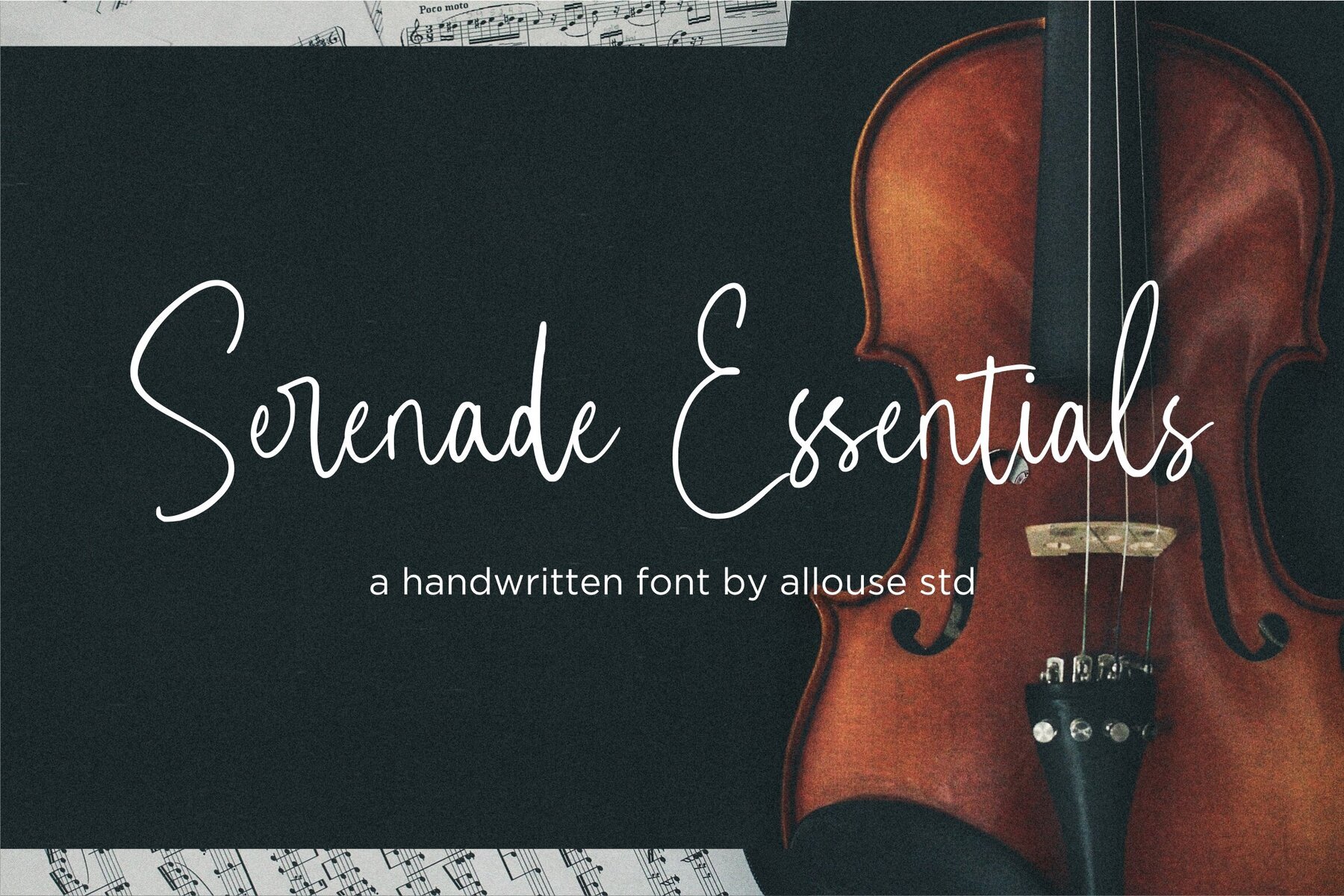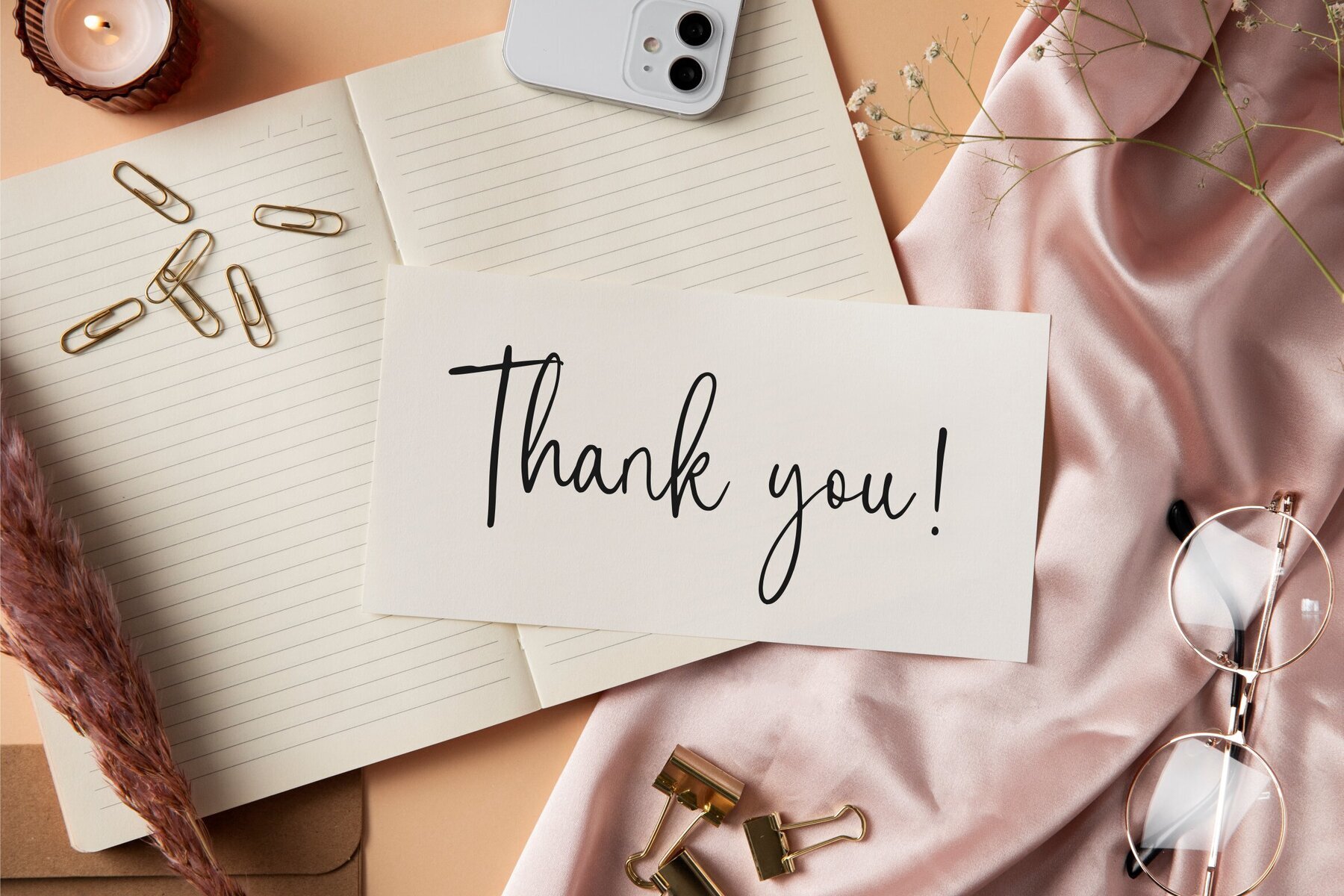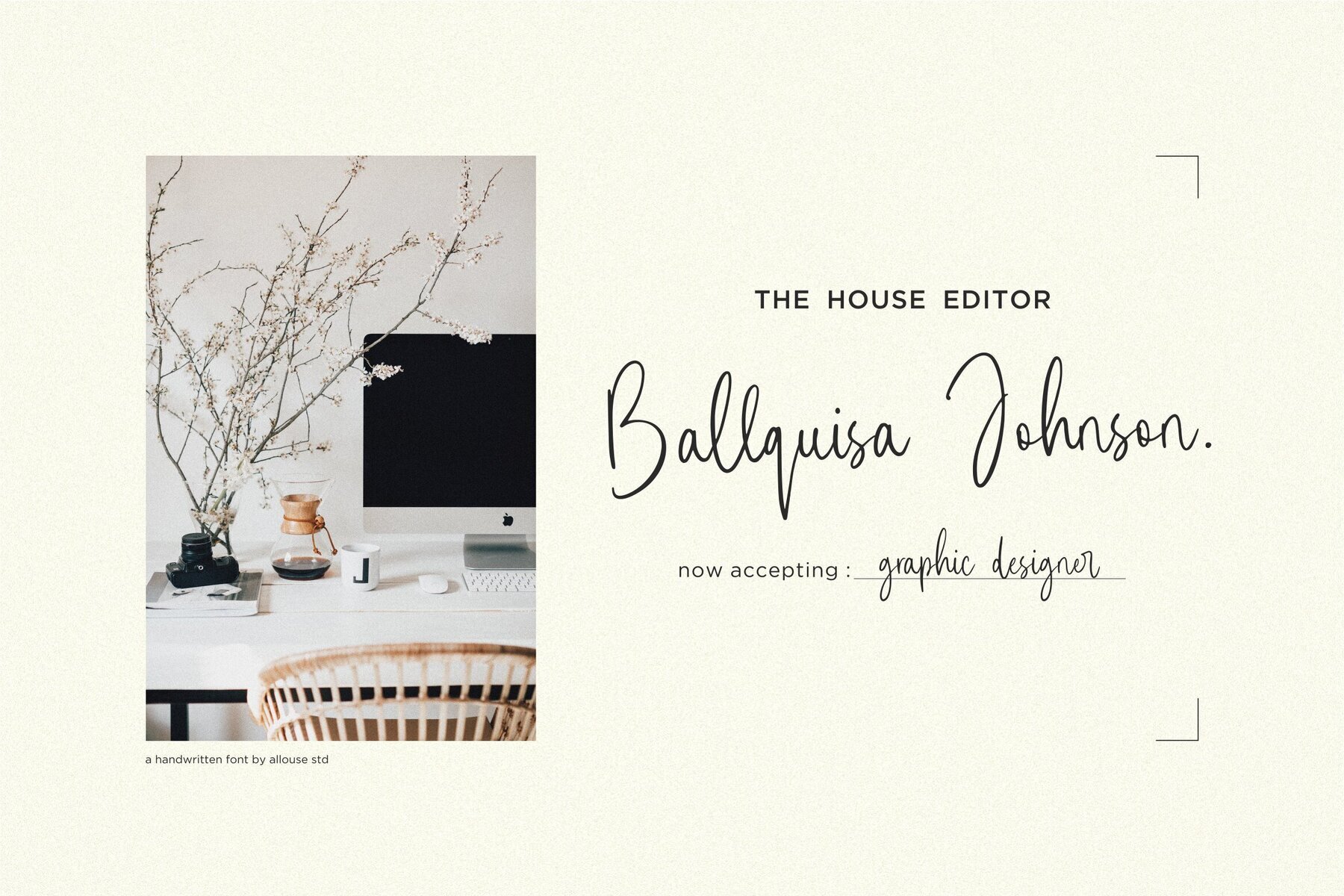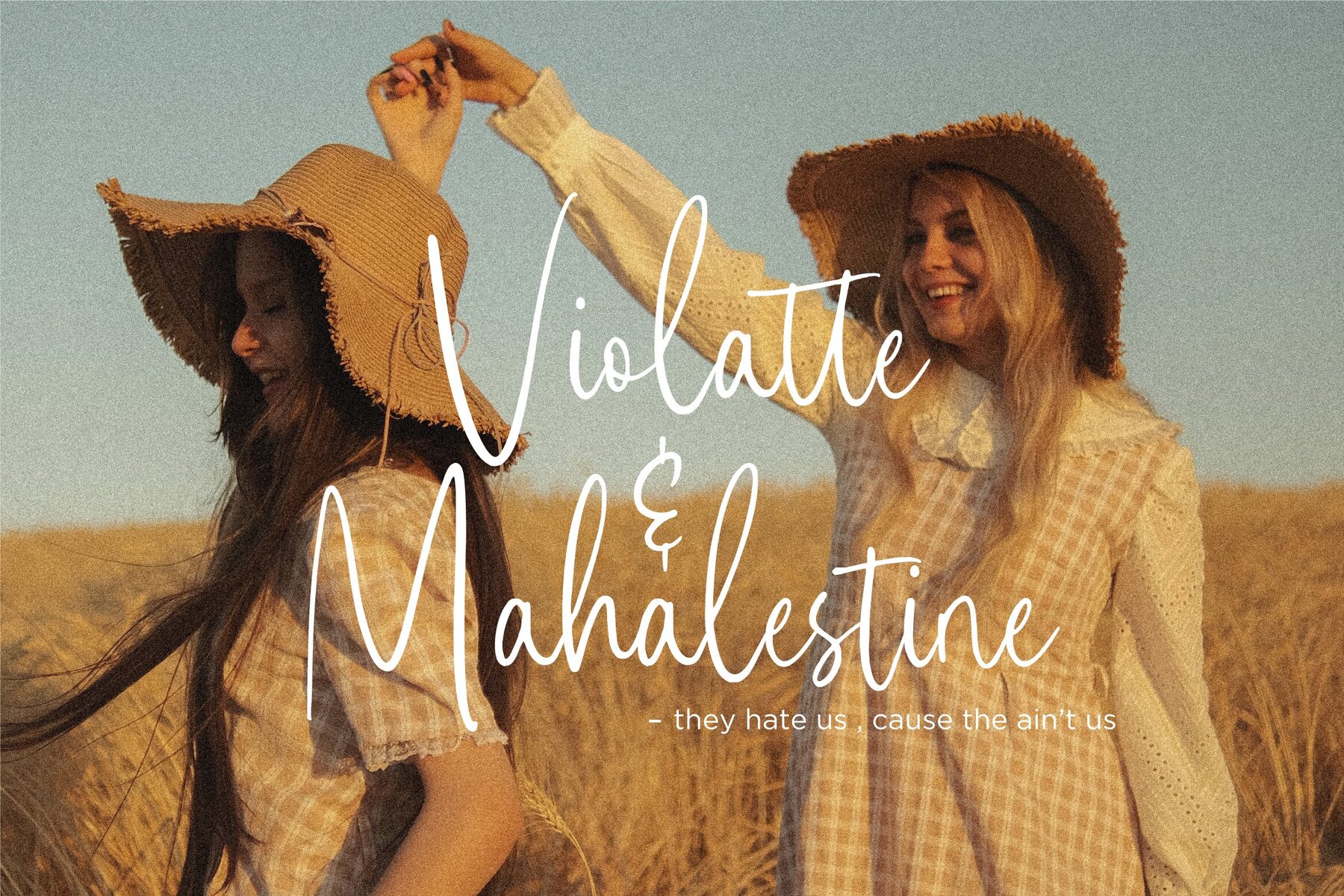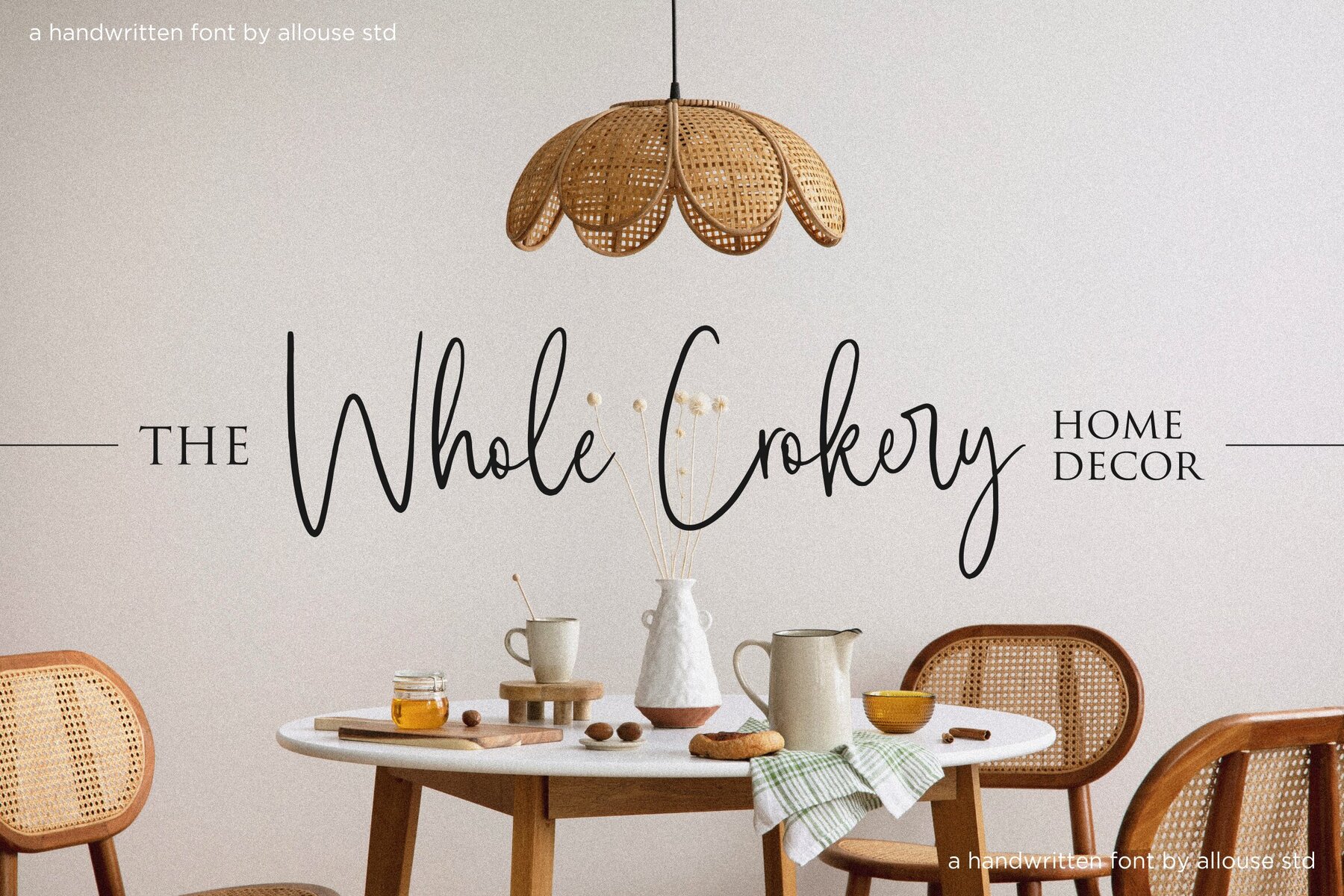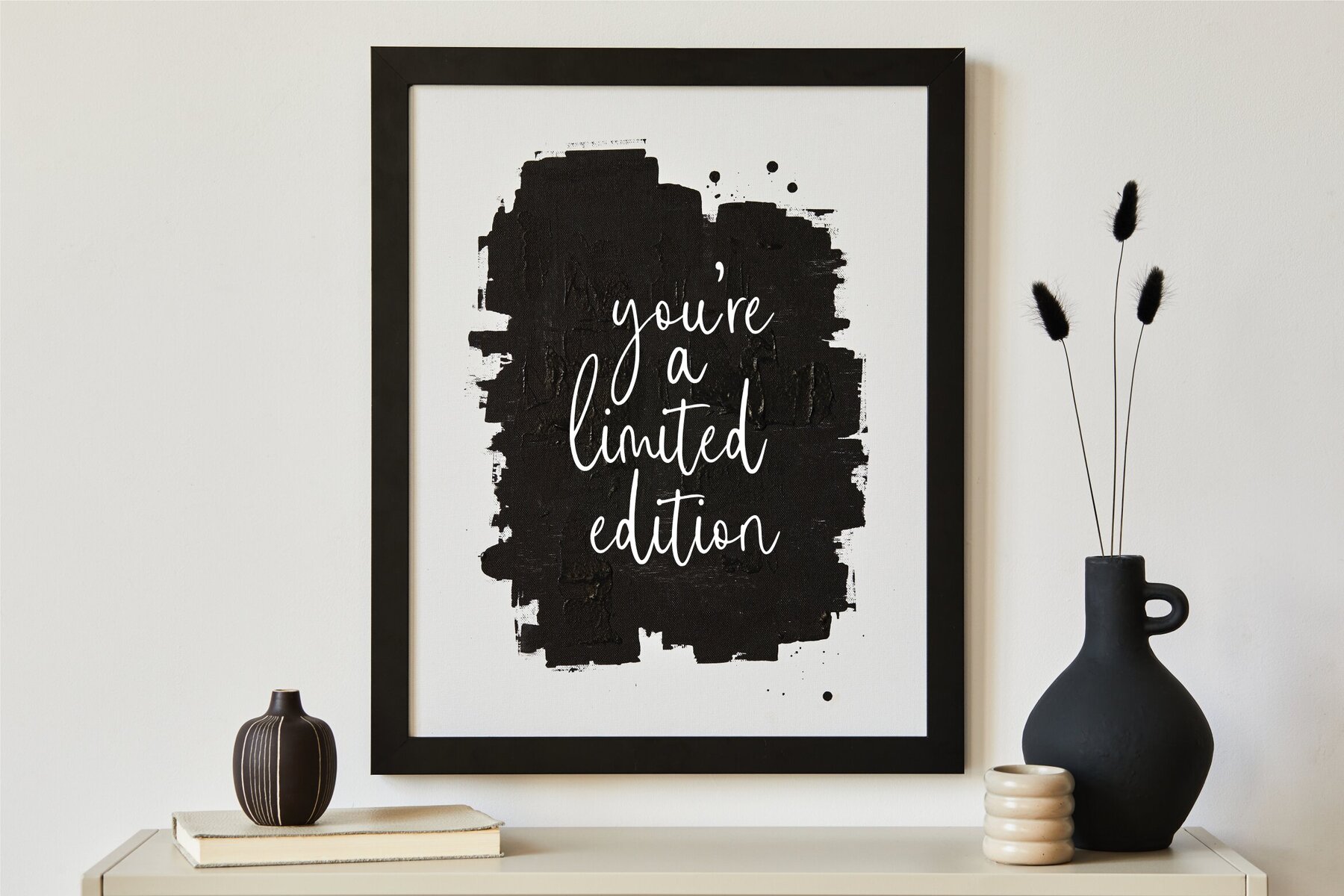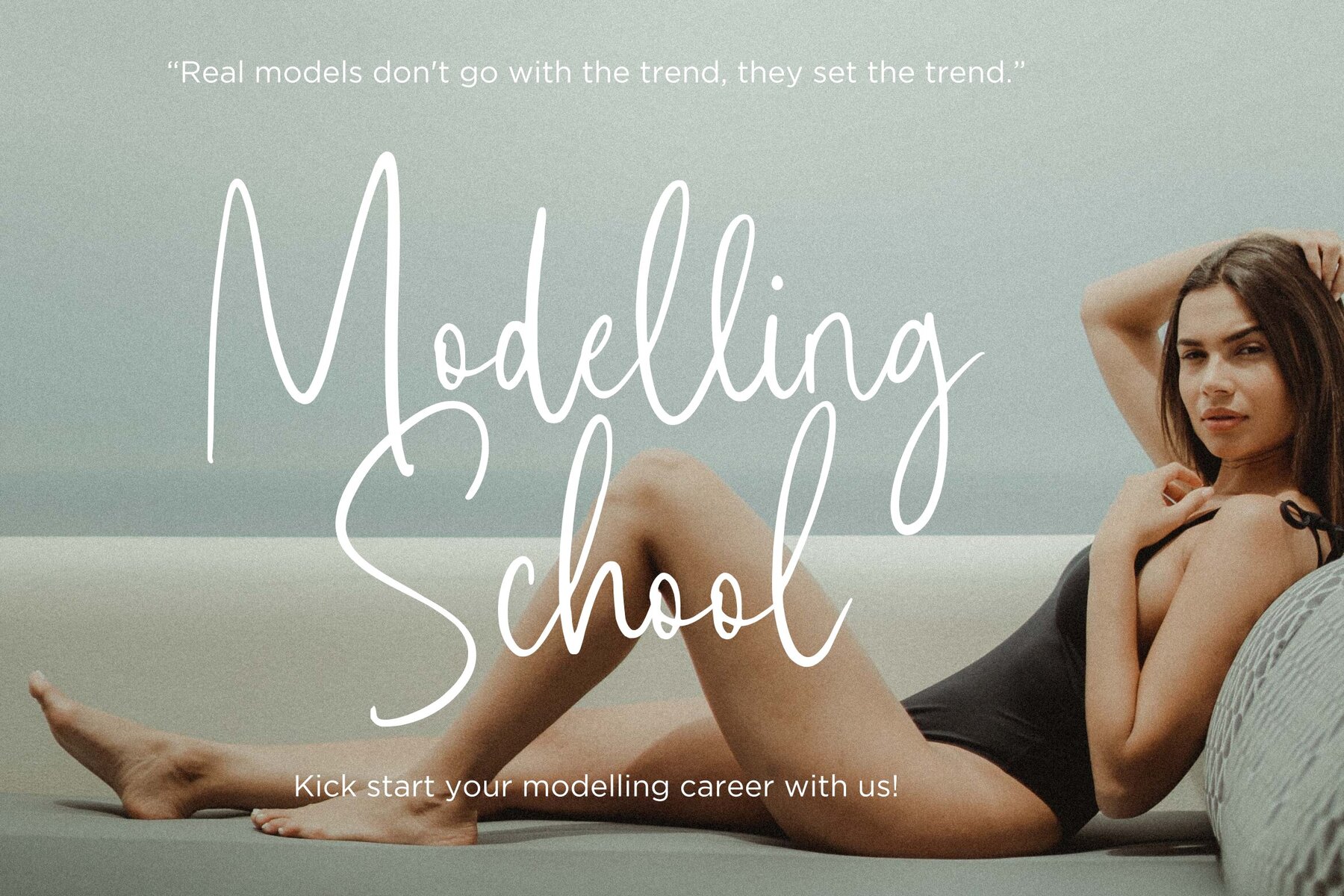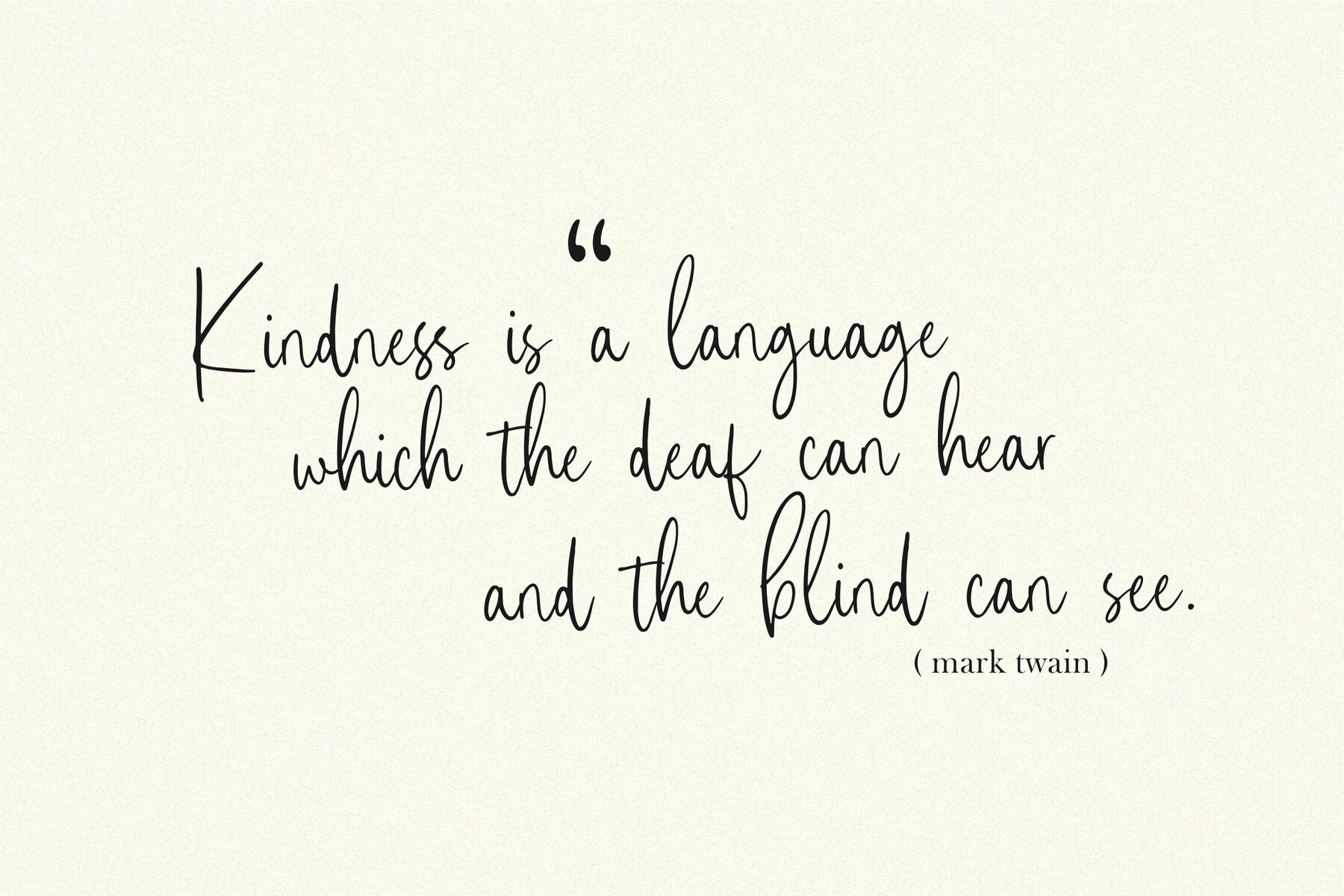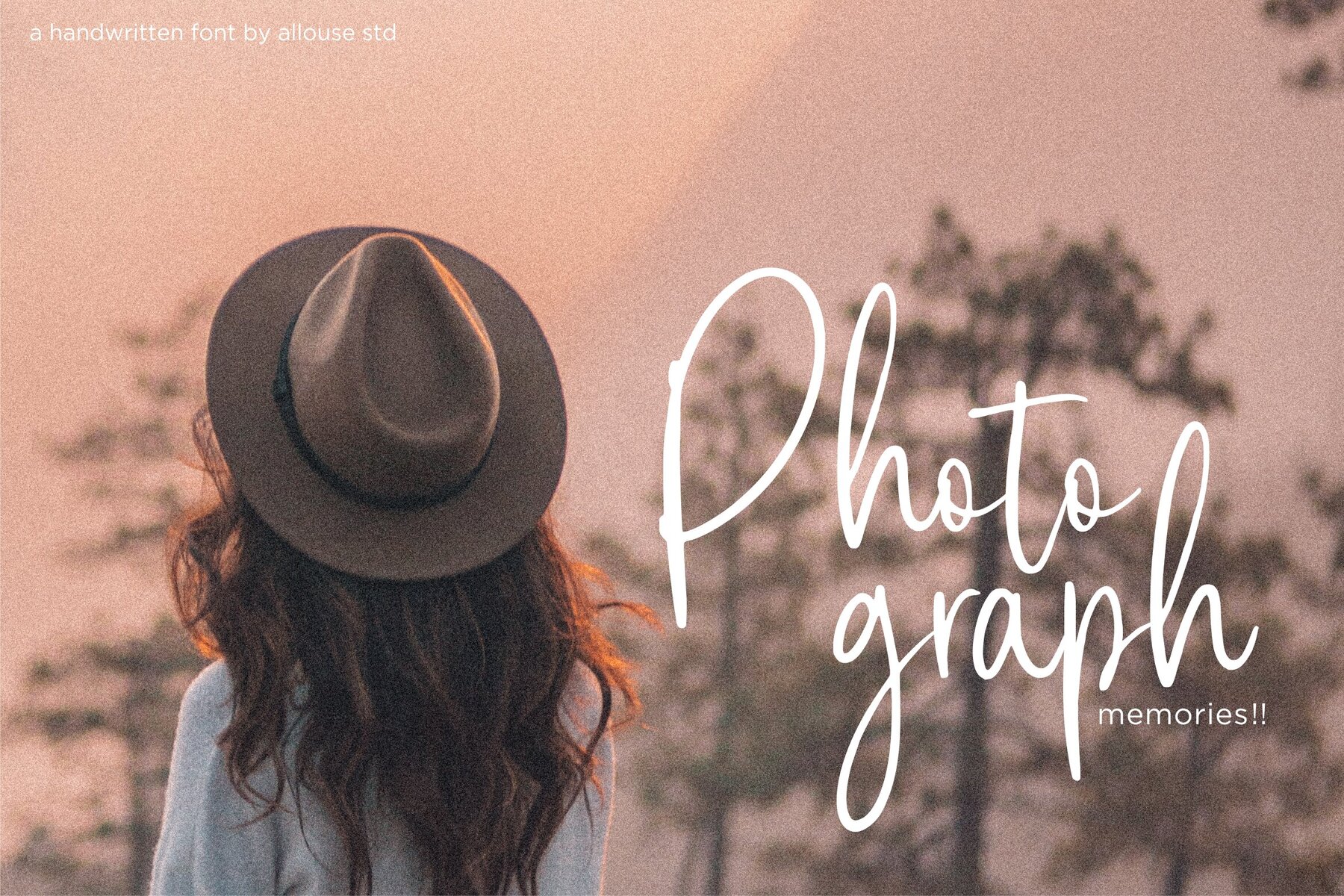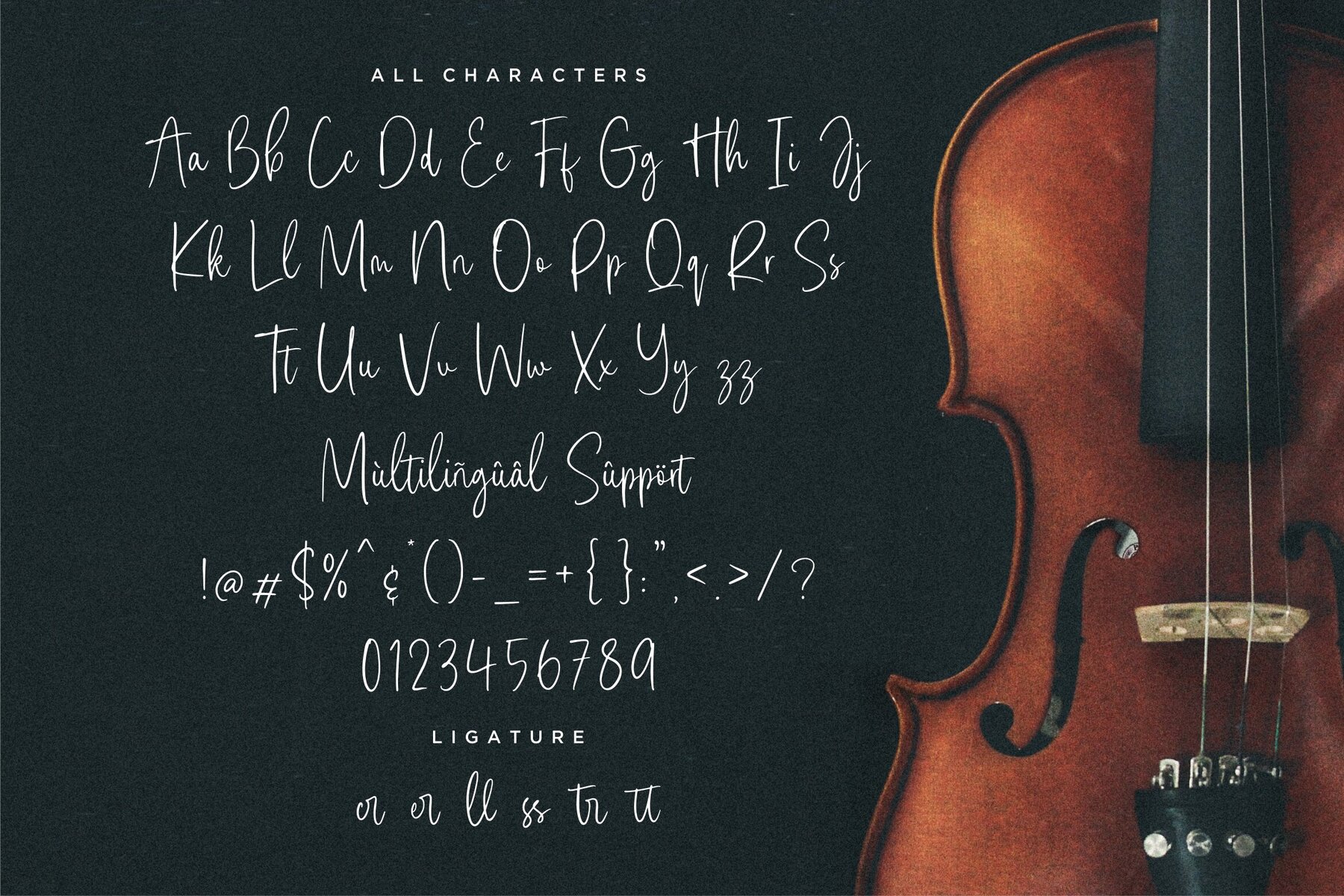
Serenade Essentials Font
Serenade Essentials
Serenade Essentials by Allouse.Studio offers a refined touch to your design projects. Whether you’re looking to enhance product packaging or create impactful branding, this typeface delivers a sophisticated elegance that resonates across various platforms. This typeface is especially suitable for a range of creative applications:Serenade Essentials: Elegant Typeface for Versatile Use